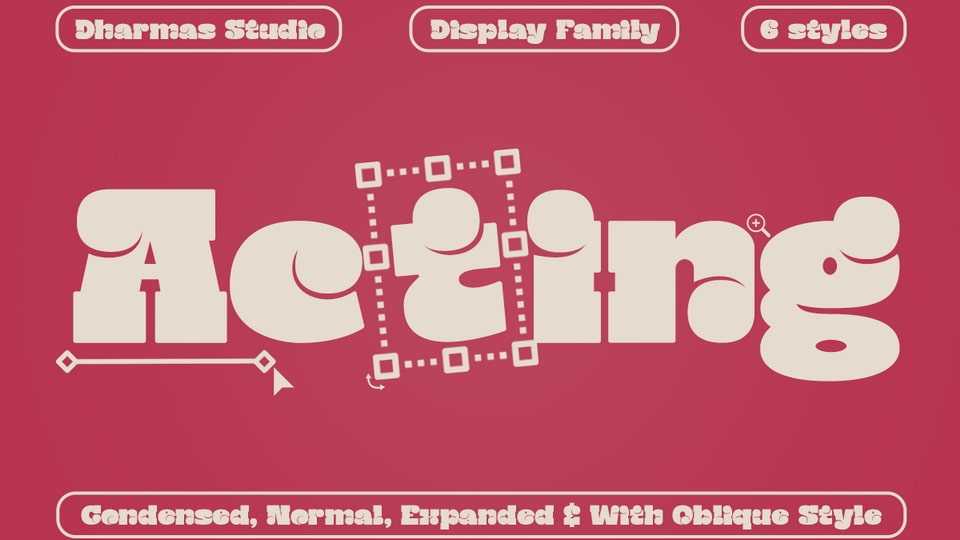
Download Acting font, a robust slab typeface that effortlessly combines nostalgia with contemporary boldness. What sets Acting apart is its distinctive circular elements within each letter